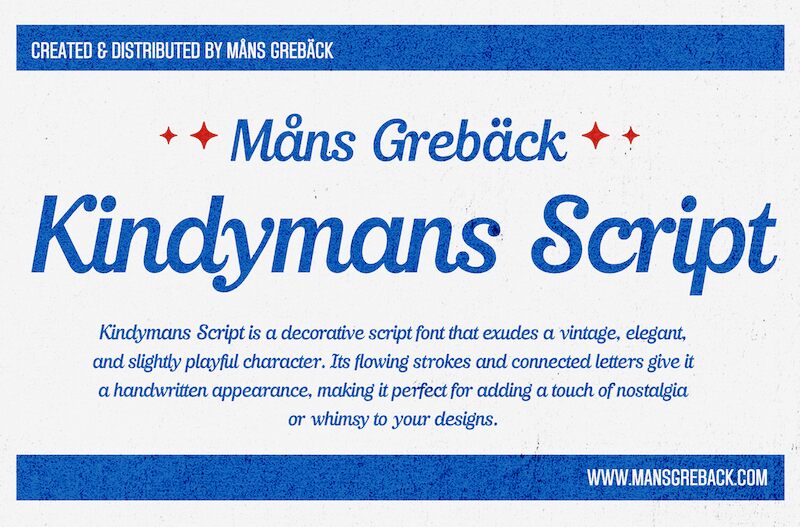
Kindymans Script font, by Mans Greback, is a fluid and elegant brush display font with modern-retro appeal. Its signature style and cursive influences lend a friendly yet sophisticated tone. The rounded forms and consistent slant of the characters give them a smooth, balanced quality that works well for both short and long texts.
Use this free script font in branding designs, packaging labels, merchandise design projects, book covers, posters, invitations or greeting cards of all kinds. It can also be used in creative DIY projects like T-shirts or as the perfect addition to banners or advertising signs that benefit from an edgy touch.